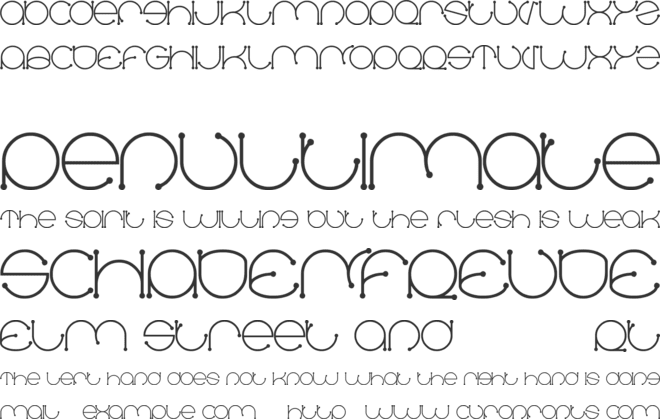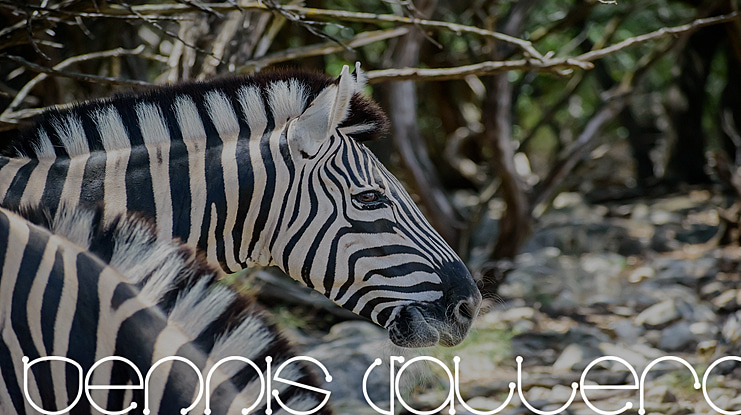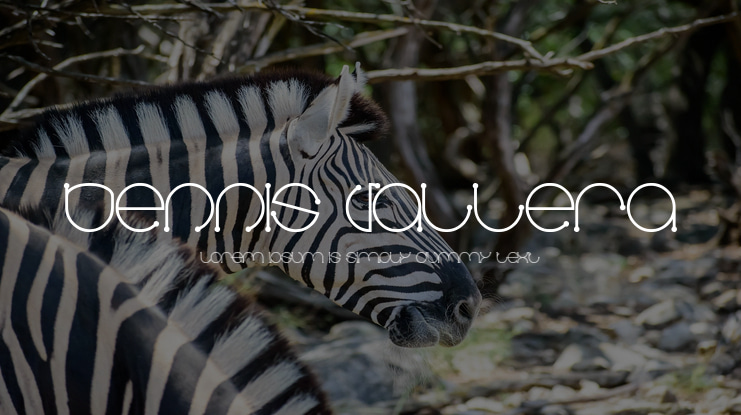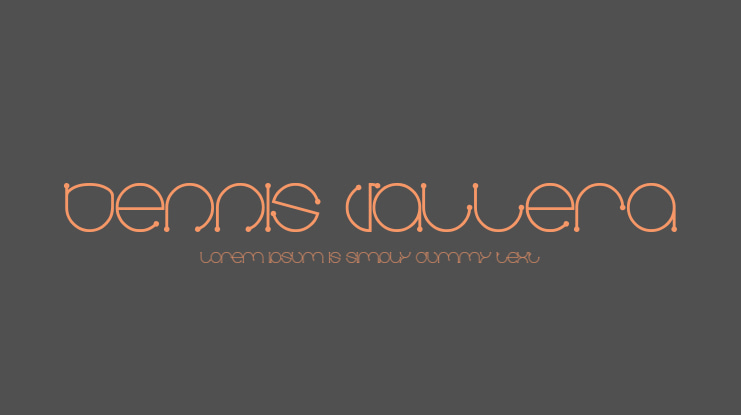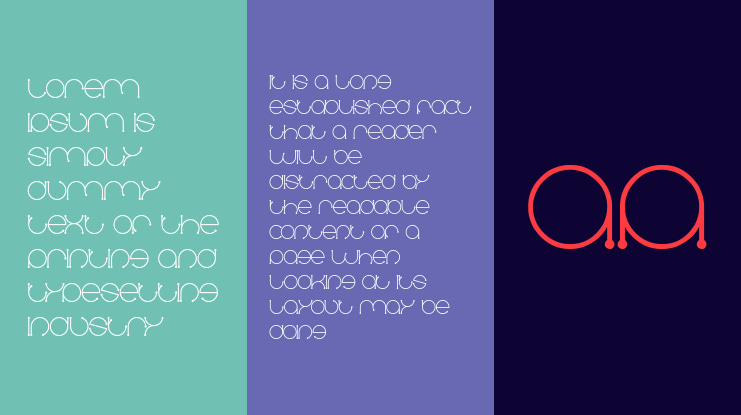
Dennis Vallera Font
hei hai halo everyone, I dedicated this for the very neat digital artist from Canada, Dennis Vallera http://dennisv.deviantart.com/
the way he makes vector path on his artwork is very inspire me, so i hope you like this dennis font